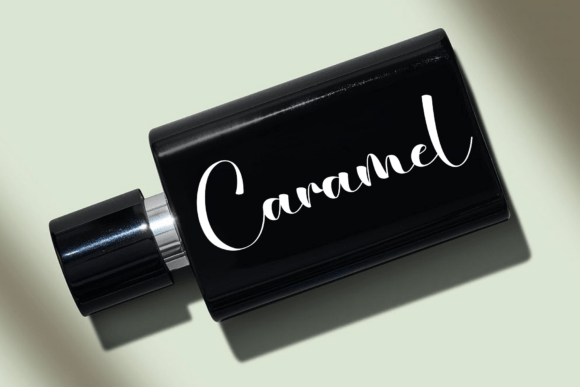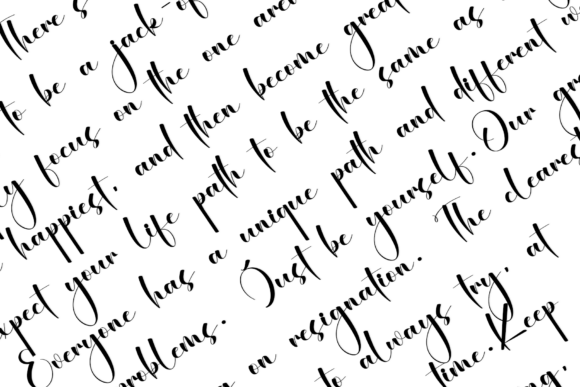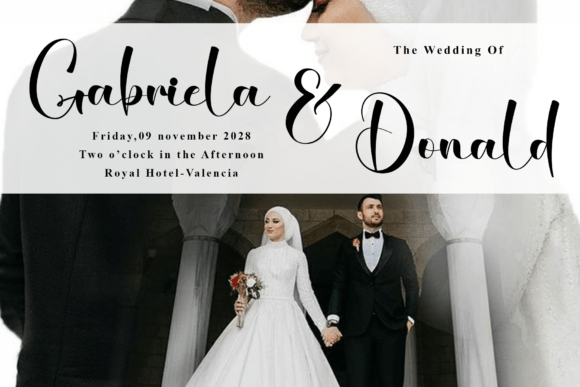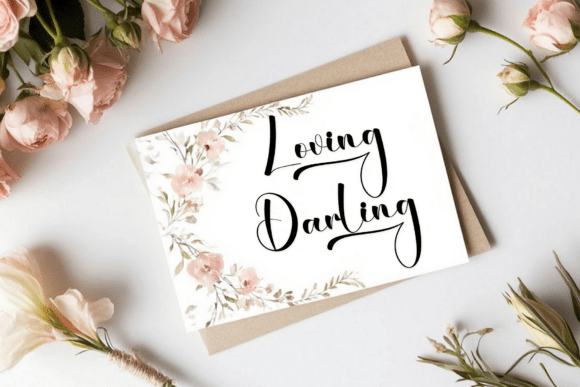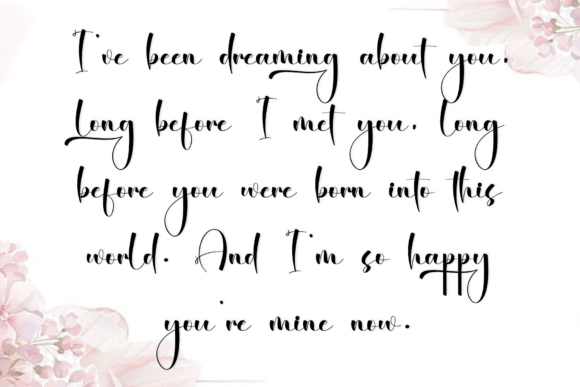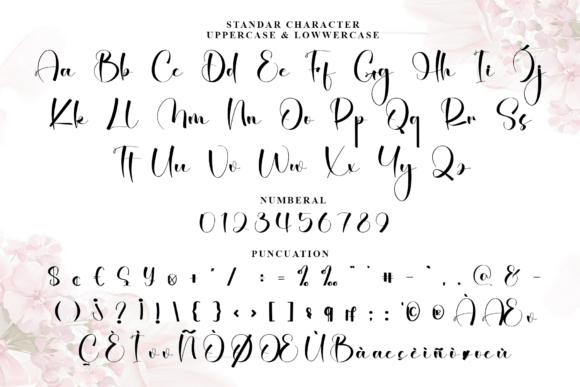
The Magic of Darling Font: Elevate Your Designs with Whimsical Elegance
Have you ever been in the midst of working on a design project, only to find yourself stuck on one thing: the perfect font? I recall a particularly frustrating experience while crafting a winter-themed wedding invitation. My client wanted a font that exuded luxury, whimsy, and seasonal charm. After hours of scouring the internet, I stumbled upon Darling Font—a stunning handwritten script font that instantly captured the essence of the project. In this article, we’ll dive into the enchanting world of Darling Font, exploring its features, uses, and what makes it a standout choice for creatives.
A First Impression: What Makes Darling Font Special
Darling Font is a luxurious handwritten script font that fuses calligraphic grace with whimsical elegance. Its flowing swashes, delicate ligatures, and refined letterforms conjure a sense of seasonal enchantment—capturing the quiet beauty of winter with festive charm. The font features high-contrast strokes and fluid curves that bring a romantic, decorative flair to any design.
- ✨ Luxurious and elegant, perfect for high-end designs
- ✅ Highly legible, despite its ornate nature
- 💫 Features high-contrast strokes and fluid curves for a romantic touch
- 🎨 Versatile and adaptable for various design projects
- 🤔 May require some time to get accustomed to its unique ligatures and swashes
- ⚠️ Not ideal for body text or lengthy content due to its decorative nature
The Story Behind Darling Font
Darling Font was inspired by the beauty of winter and the magic of the holiday season. Its creator aimed to craft a font that would evoke a sense of wonder and enchantment, perfect for designs that require a touch of luxury and whimsy. With its high-contrast strokes and fluid curves, Darling Font is sure to add a romantic, decorative flair to any design.
| Font Name | Darling Font |
| Author | Creatype Designer |
| What makes Darling Font suitable for luxury designs? | Darling Font’s high-contrast strokes, fluid curves, and refined letterforms give it a luxurious and elegant feel, perfect for high-end designs. |
| Can I use Darling Font for body text? | While Darling Font is highly legible, its decorative nature makes it more suitable for headlines, titles, and short text elements rather than body text. |